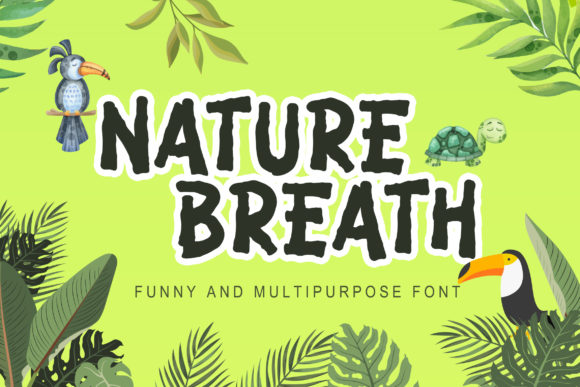
Welcome to the world of Nature Breath, a font family that captures the essence of nature's beauty and raw energy. This chunky lettered and unique display font is crafted with bold strokes and a vibrant personality, creating a visual feast for your eyes.
Immerse yourself in the lush green forests, the tranquil blue oceans, and the fiery red sunsets, all embodied in the curves and lines of Nature Breath. Let your imagination soar as you explore the endless possibilities that await you with this captivating font.
Whether you're a designer longing to bring life to your posters or a social media enthusiast seeking to make a statement, Nature Breath is your perfect companion. Its bold presence adds a touch of elegance and charm to any project, capturing the attention of your audience and leaving a lasting impression.
Feel the warmth of the sun's rays, the gentle breeze whispering through the leaves, and the roar of the waves crashing against the shore, all through the strokes of Nature Breath. Engage your senses and let your creativity flourish as you craft designs that resonate with the power and beauty of nature.
Transport yourself to a world where imagination knows no bounds. With Nature Breath at your fingertips, you'll discover a font that goes beyond mere aesthetics. It's a gateway to a world where your ideas take flight and your artistic vision comes to life.